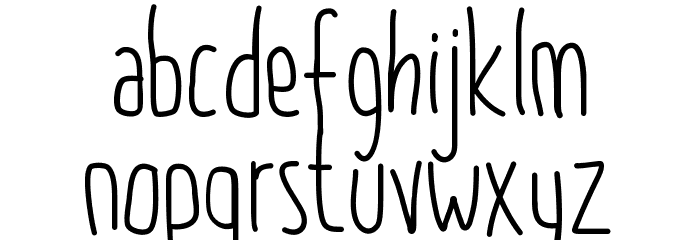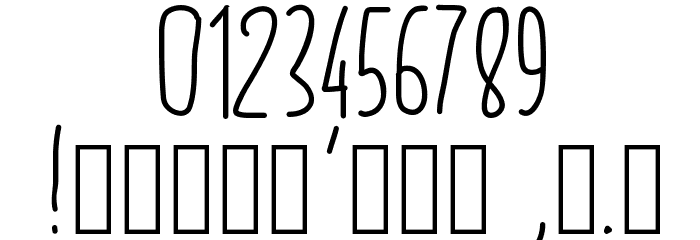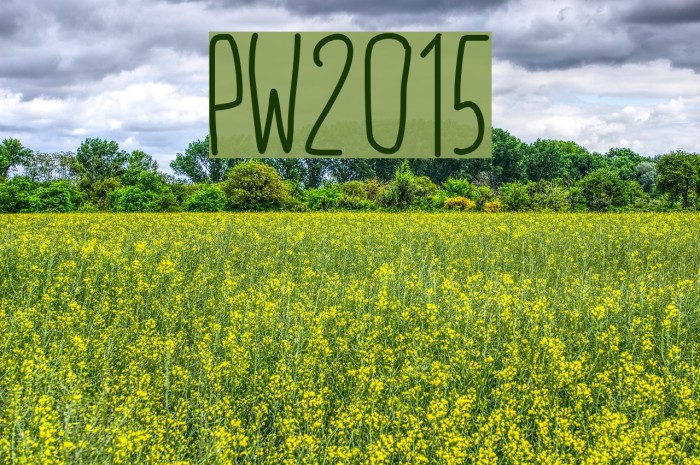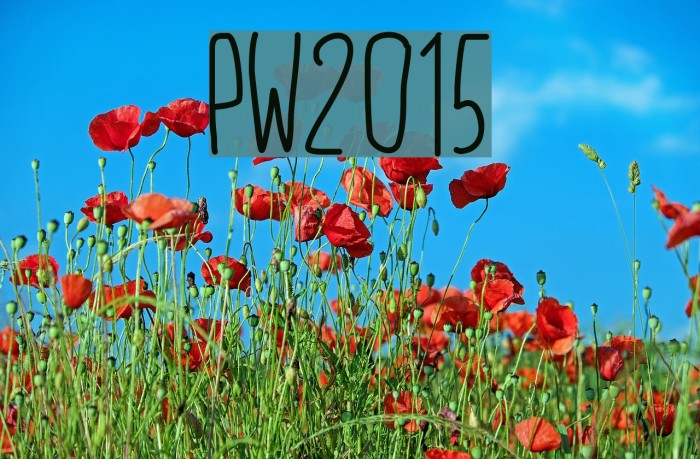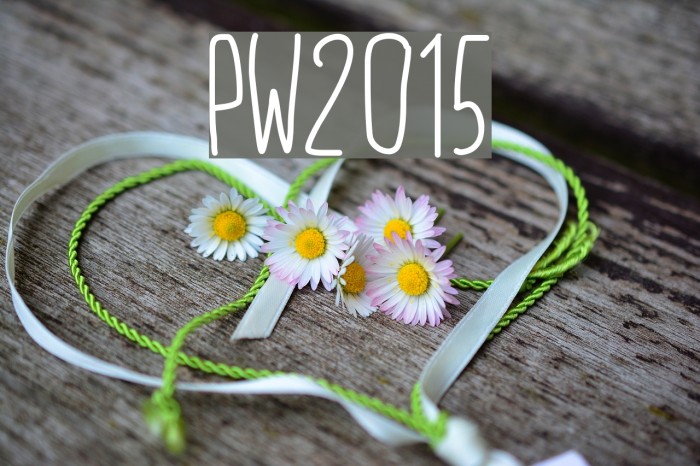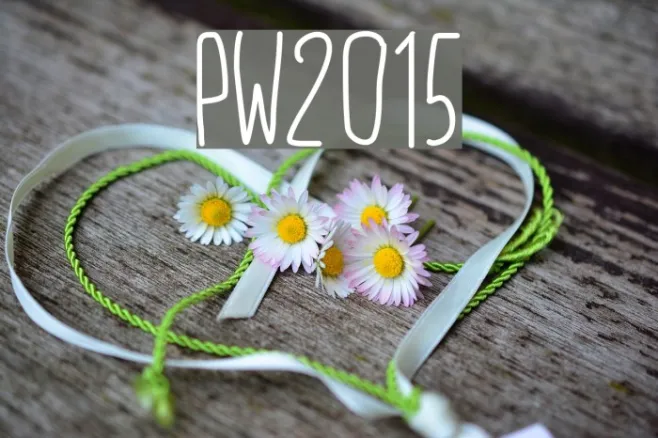
PW2015 Font
This font features a playful and informal handwritten style, characterized by its tall, narrow letters with slightly irregular strokes. The uppercase and lowercase letters maintain a consistent height, giving a uniform appearance. The numerals are distinct and match the overall style, while the special characters add a quirky touch. The font's organic feel makes it suitable for creative and casual applications, providing a friendly and approachable aesthetic.
A playful, handwritten font with tall, narrow letters and a casual style.
- Font: PW2015
- Proposed Projects: Ideal for children's books, greeting cards, casual branding, and creative posters.
- Category: Handwritten
- Overall Style: Casual